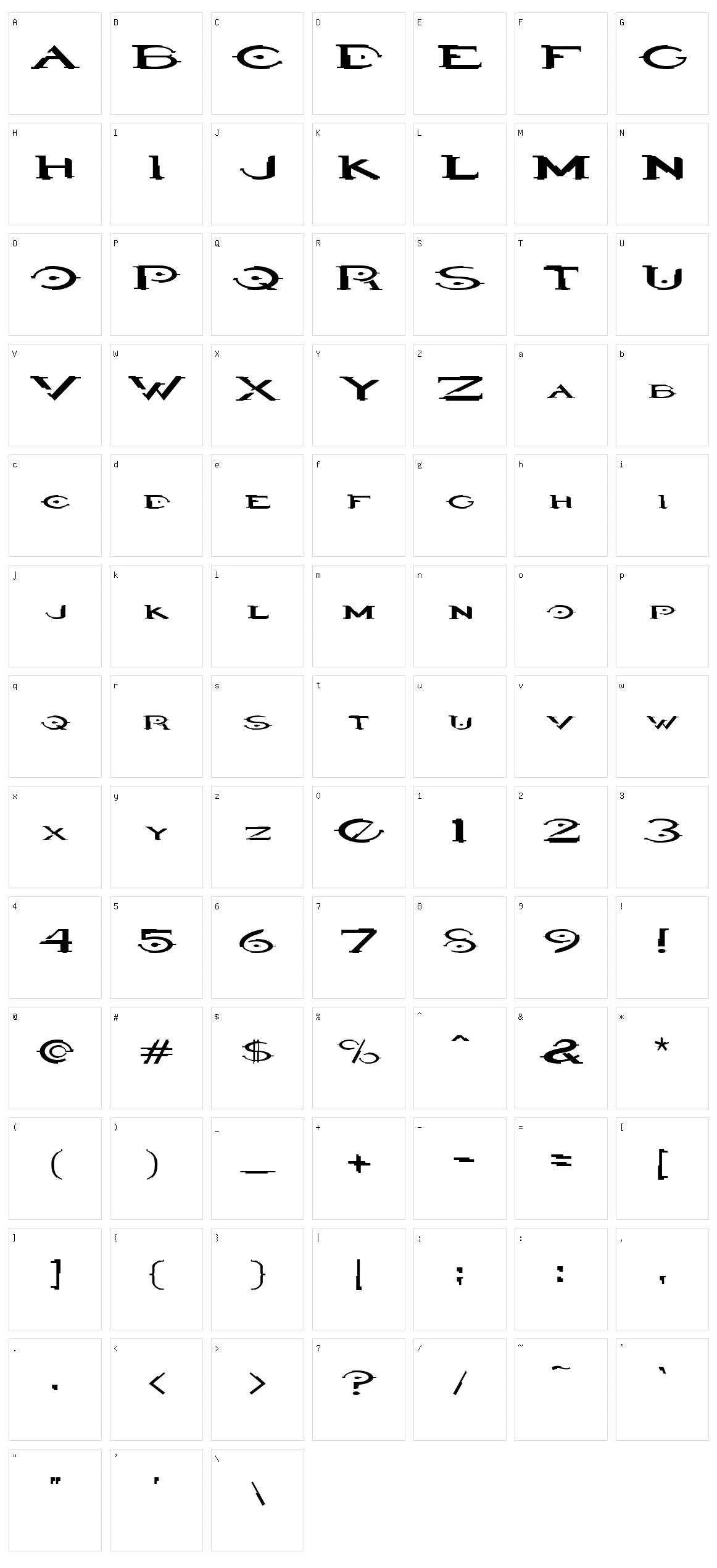
* HALO FONT *
* In homage of Xbox's Halo created by Bungie *
Hello there. This is my first font creation so if I've violated
every font rule in the book, excuse me. I made it because I
couldn't find a Halo font anywhere on internet. Really all I wanted
to do was to put my name in the logo for fun and ended up making an
entire font. There are two versions, a solid and an outlined. The
outlined version was made to make it easier to create the filleted
effect of the original logo. All letters and standard punctuation
are there along with many others. I also added some alternate
versions of some since I had already drawn them. Two other extras
are also there, the shield from Halo and a 4 piece Halo logo(see
below).
Halo Specific Extras:
Halo Plate - Alt0231
Halo Logo - Alt0232, Alt0233, Alt0234 and Alt0235
I have created 4 pieces that can be arranged together
to create (generically) the Halo Logo background. They are set as
Alt0232, Alt0233, Alt0234 and Alt0235. They should be placed from
0232 to 0235 back to front (black, dark gray, light gray, medium gray).